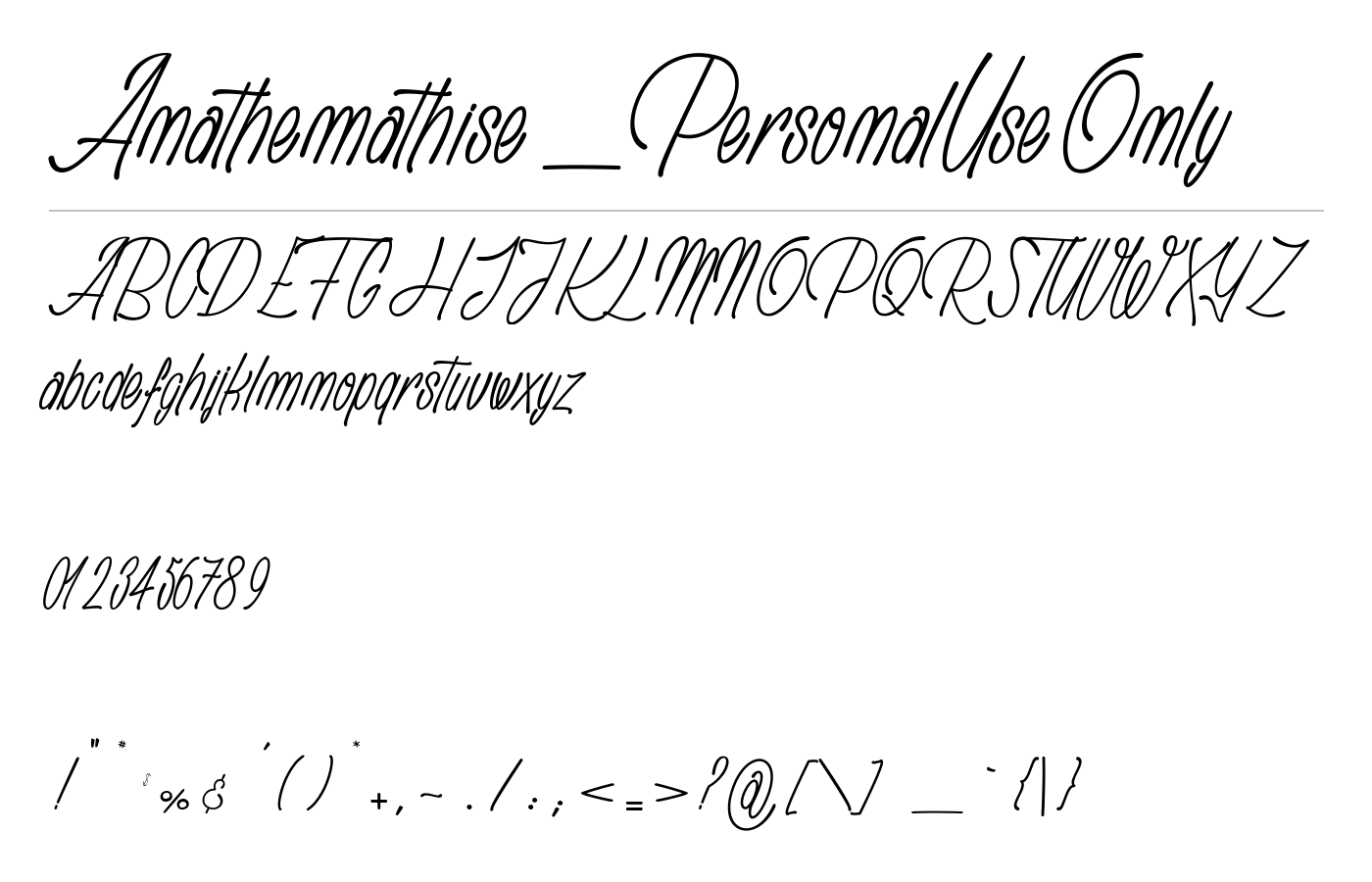
Anathemathise_PersonalUseOnly is a delicate, narrow script font with elegant, flowing strokes that evoke a handcrafted, artistic feel. Its thin weight and tall, slender letterforms create a sophisticated yet approachable style, perfect for adding refined personality to invitations, branding, and creative projects that seek a graceful, personal touch. This font shines in designs where a stylish, cursive flair enhances the overall aesthetic without overwhelming the composition.
Anathemathise_PersonalUseOnly Font
About Anathemathise_PersonalUseOnly Font